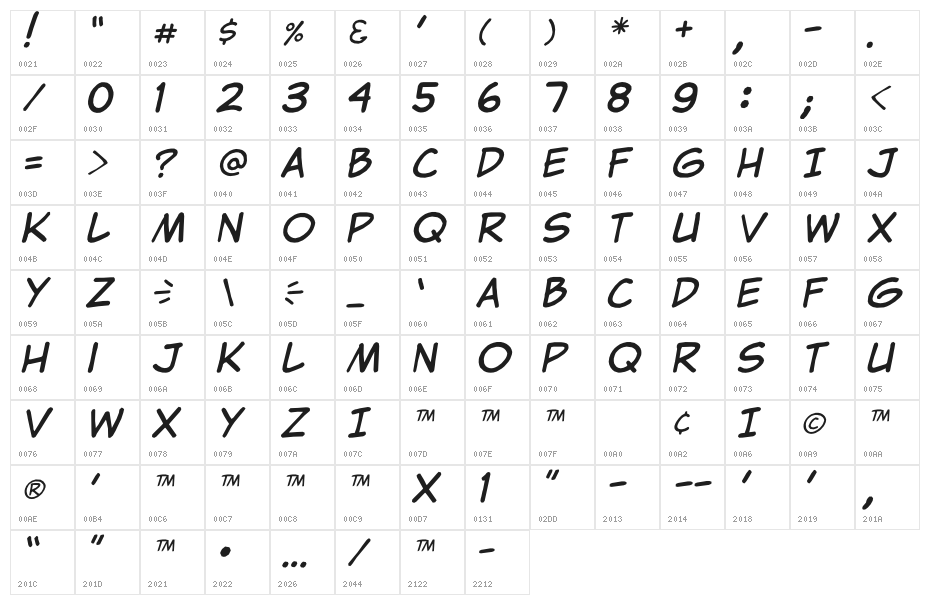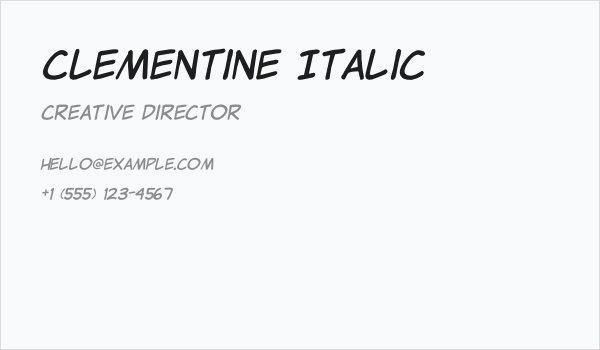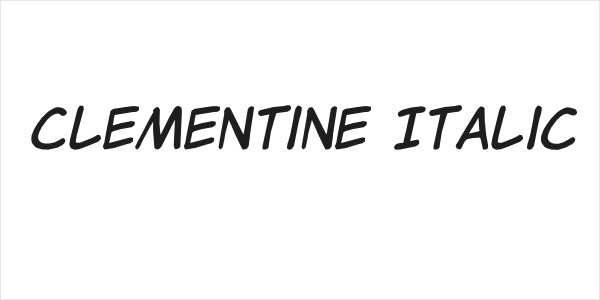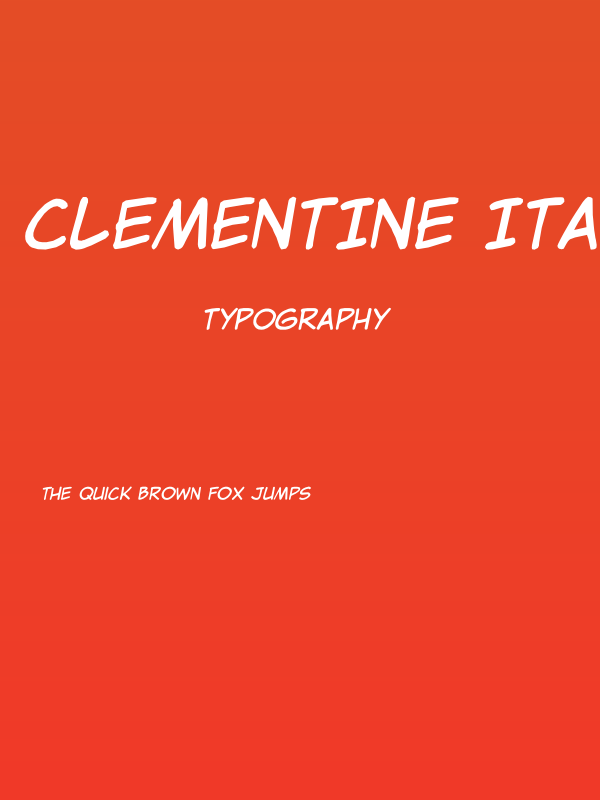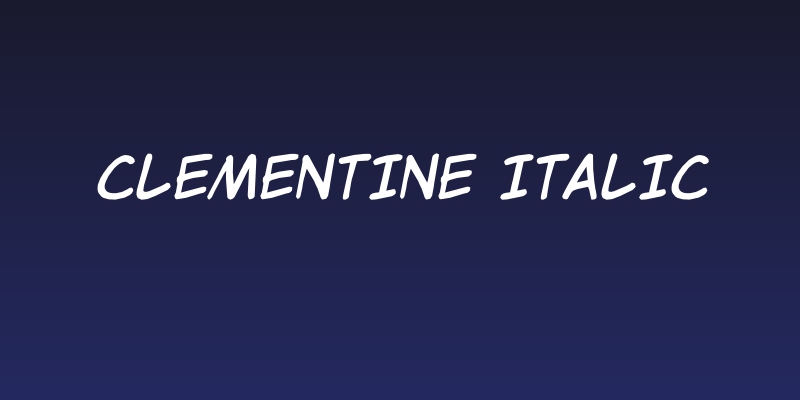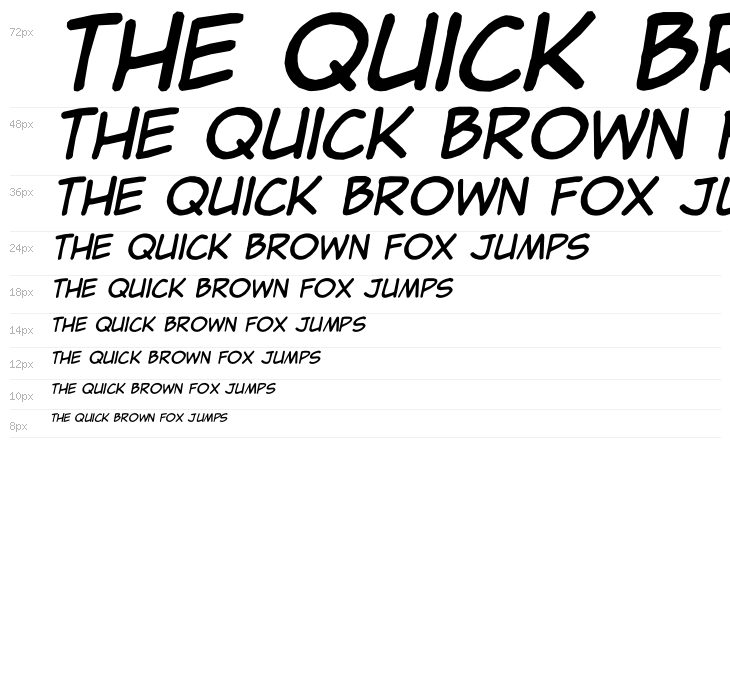
Clementine Italic Font
Clementine Italic Description
This font exhibits a playful and dynamic style with a handwritten appearance. The characters are slightly slanted, giving an italicized effect that adds a sense of motion and fluidity. The strokes are consistent in thickness, providing a uniform look across all characters. The rounded edges and smooth curves contribute to its approachable and friendly demeanor. This font is versatile, suitable for both casual and creative projects, where a personal touch is desired. The numerals and special characters maintain the same lively style, ensuring cohesion throughout any text.
| Proposed Projects | Ideal for greeting cards, invitations, personal branding, and creative posters. |